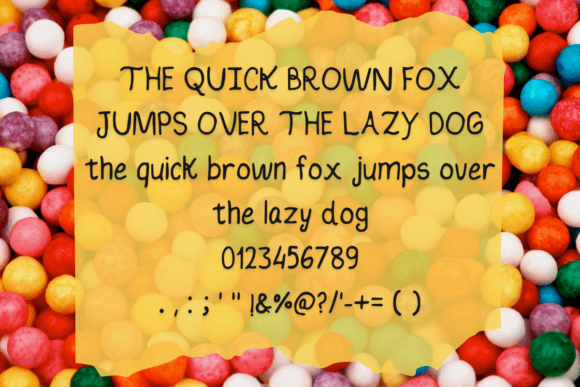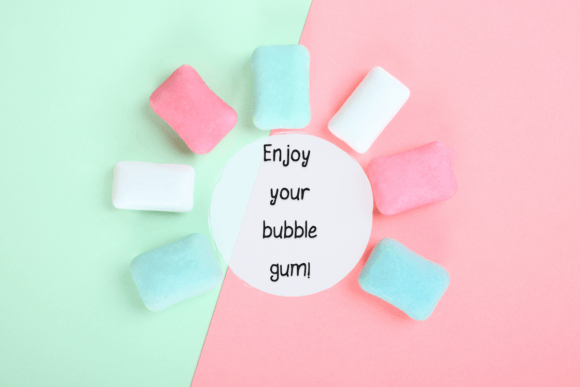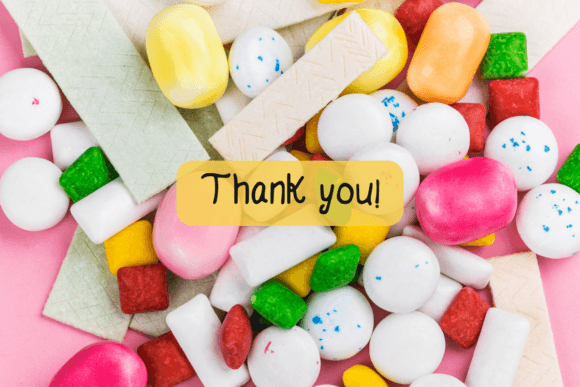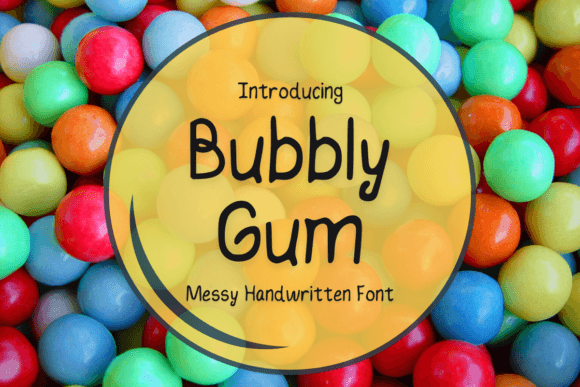
Bubbly Gum Font: Adding a Playful Touch to Your Designs
In the world of typography, fonts play a crucial role in conveying the tone and personality of a design. If you’re looking for a font that exudes playfulness and friendliness, look no further than Bubbly Gum Font. This modern handwritten font is perfect for designers and crafters who want to add a touch of whimsy to their projects.
What is Bubbly Gum Font?
Bubbly Gum Font is a messy and modern handwritten font that is sure to make your designs stand out. Its playful and friendly style makes it suitable for a wide range of projects, from social media graphics to branding materials, and even craft projects. This font is all about adding a personal touch to your designs, making them look informal and approachable.
Characteristics of Bubbly Gum Font
So, what makes Bubbly Gum Font so unique? Here are some of its key characteristics:
- Playful and friendly style: Bubbly Gum Font has a carefree and approachable vibe that makes it perfect for designs that require a personal touch.
- Messy and modern handwritten look: This font has a distinctly handwritten look that’s both modern and messy, giving it a unique charm.
- Informal and nice look: Bubbly Gum Font is all about adding a touch of informality to your designs, making them look friendly and approachable.
Uses of Bubbly Gum Font
Bubbly Gum Font is a versatile font that can be used in a wide range of projects, including:
- Social media graphics: Add a playful touch to your social media graphics, such as Instagram posts, Facebook covers, and Twitter headers.
- Branding materials: Use Bubbly Gum Font to create unique and memorable branding materials, such as logos, business cards, and brochures.
- Craft projects: This font is perfect for crafters who want to add a personal touch to their projects, such as handmade cards, scrapbooking, and DIY crafts.
- Packaging design: Bubbly Gum Font can add a playful touch to packaging design, making products stand out on store shelves.
Tips for Using Bubbly Gum Font
Here are some tips for using Bubbly Gum Font effectively in your designs:
- Pair it with other fonts: Bubbly Gum Font can be paired with other fonts to create a unique and interesting contrast.
- Use it in moderation: While Bubbly Gum Font is playful and friendly, it can be overwhelming if used excessively. Use it in moderation to create a balanced design.
- Experiment with colors: Bubbly Gum Font can be used with a wide range of colors, so don’t be afraid to experiment and find the perfect combination.
In conclusion, Bubbly Gum Font is a playful and friendly font that’s perfect for designers and crafters who want to add a touch of whimsy to their projects. Its messy and modern handwritten look makes it suitable for a wide range of designs, from social media graphics to branding materials and craft projects. With its versatility and unique charm, Bubbly Gum Font is sure to become a favorite in your design toolkit.